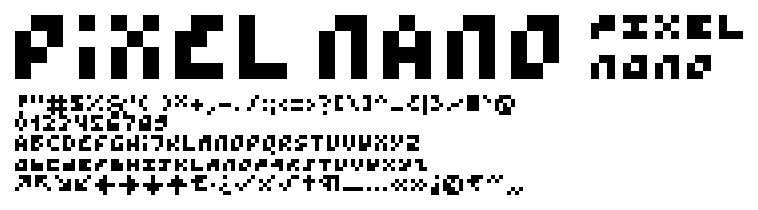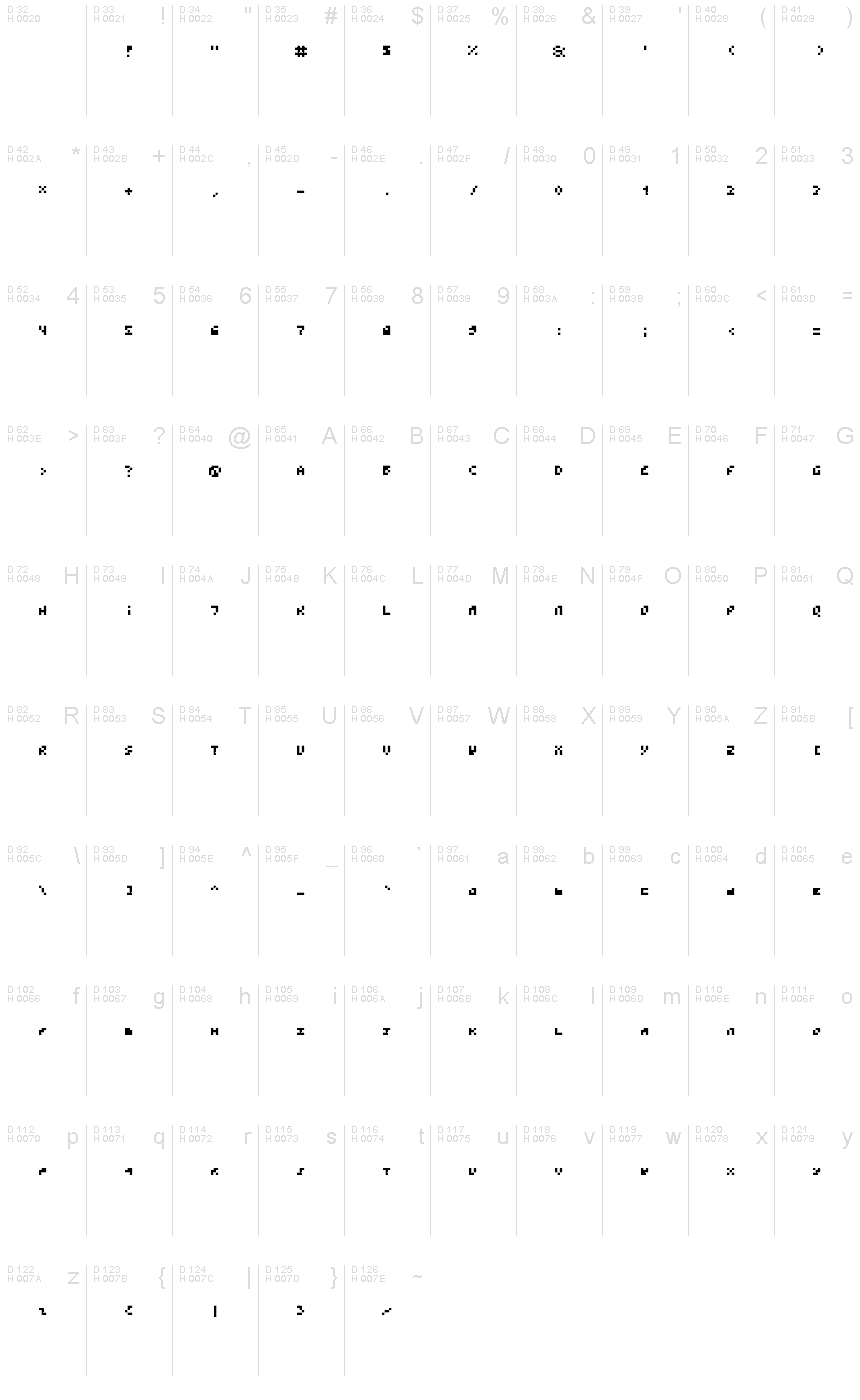
Pixel Nano Regular
Pixel Nano font by IsMeDavsta is a bold bitmap typeface with pixelated geometric letters. Expanded in width and reminiscent of retro computer screens, the alphabet has a unified blocky construction with every glyph capturing the similar look and feel. The creative looks can be applied to any interesting futuristic project which needs uniqueness.
4x3 and 3x3 with 5x5 symbols